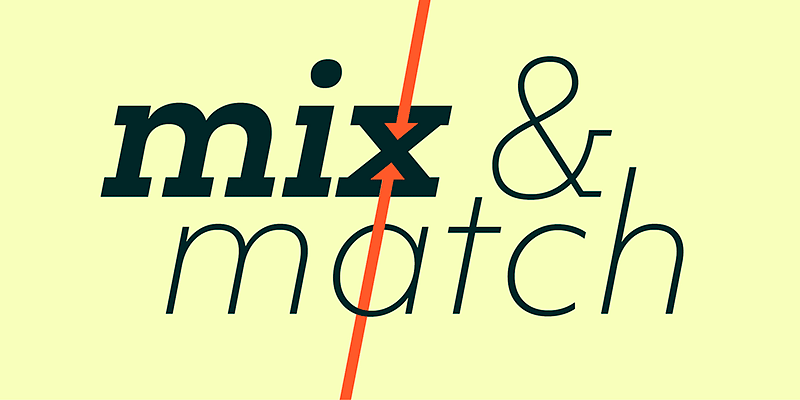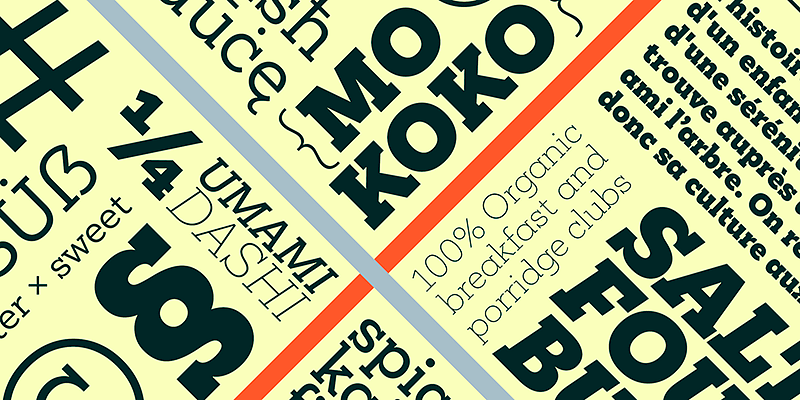
Mokoko combines a timeless look with progressive technology for a family that is both functional and characterful. Its extended range can support everything from long-form text to bold displays.